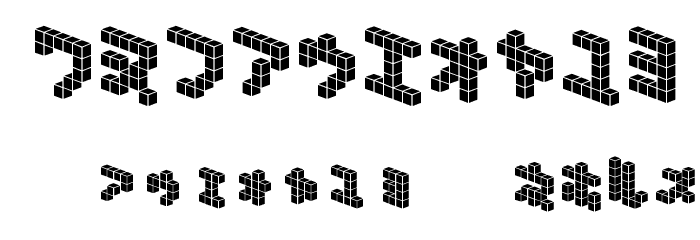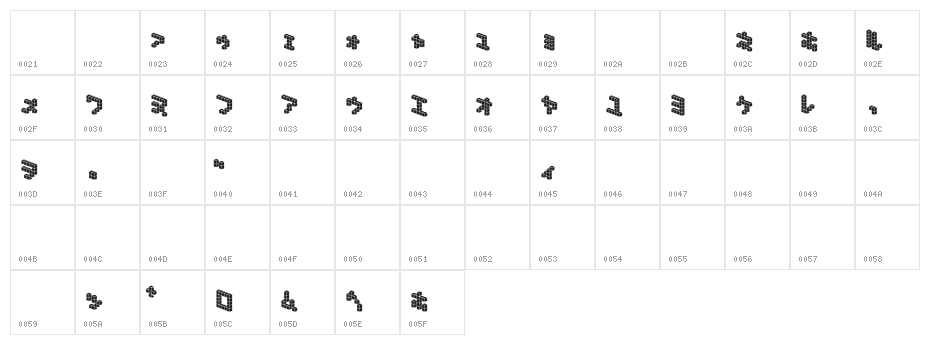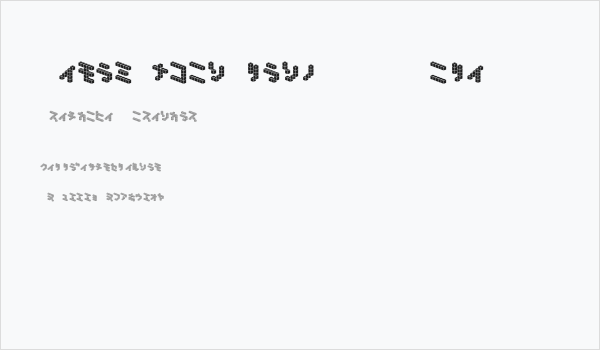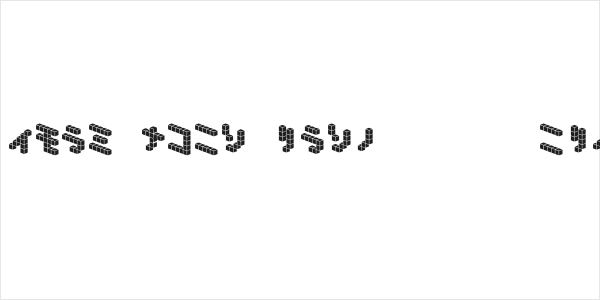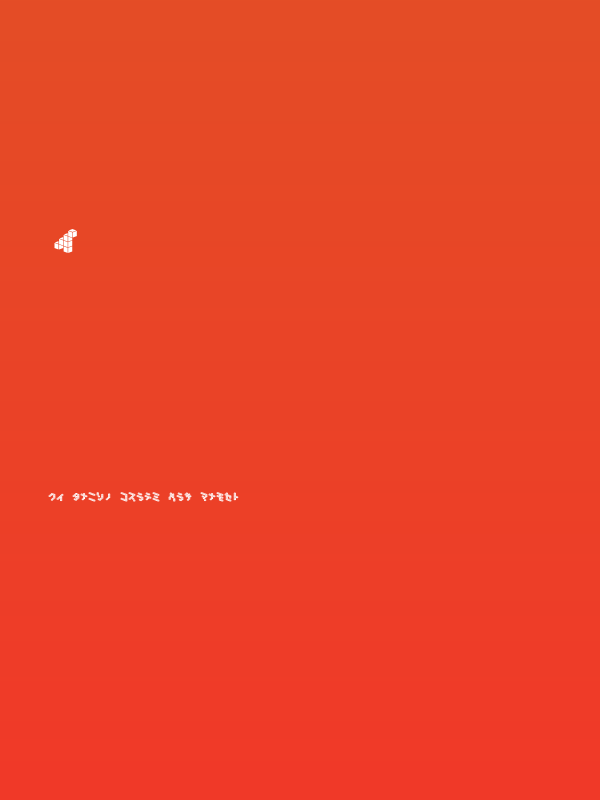
This font features a unique, three-dimensional block style that resembles cubic structures. Each character is composed of small, interconnected cubes, creating a visually striking and bold appearance. The design is highly geometric, with sharp angles and a consistent pattern throughout each letter and number. This font's distinct style makes it stand out, offering a modern and futuristic aesthetic. The characters are evenly spaced, maintaining a balanced look across the text. The overall design is decorative and eye-catching, suitable for creative and artistic projects.
| Overall Style | Modern, Futuristic, Decorative |
| Proposed Projects | Ideal for video game titles, sci-fi themed posters, futuristic branding, and creative digital artwork. |